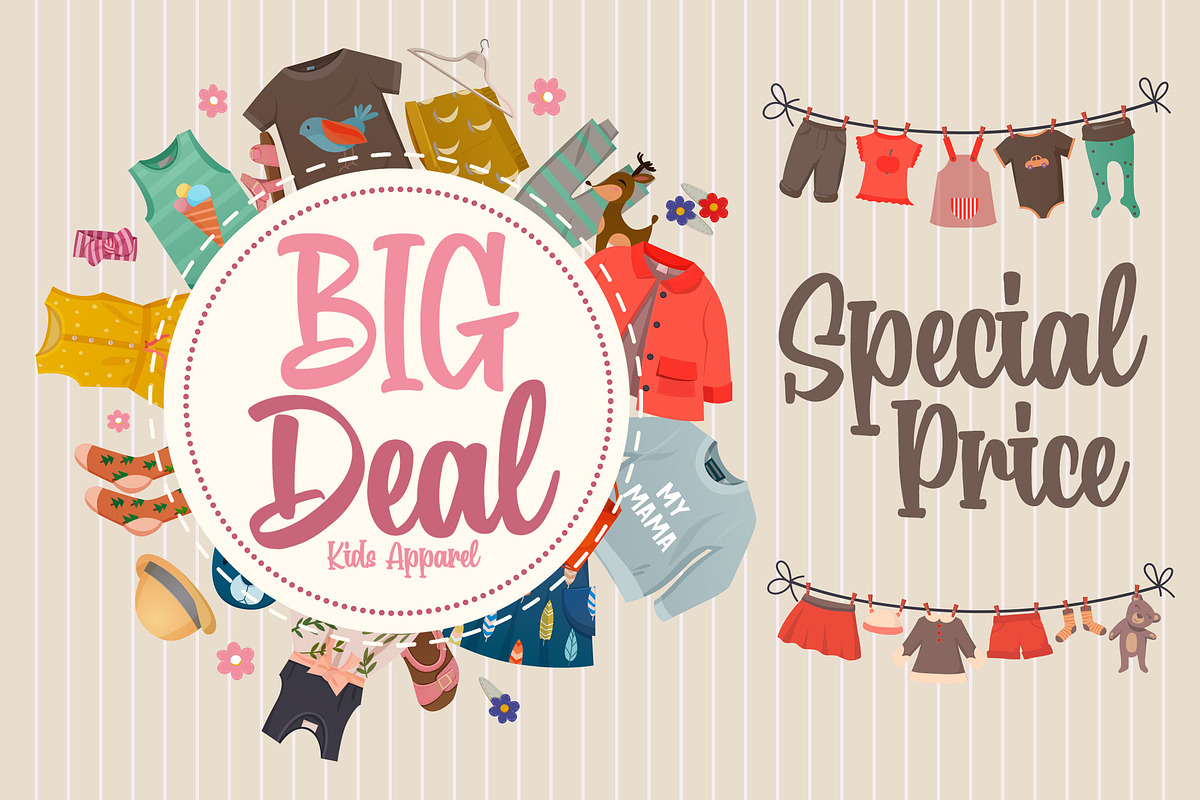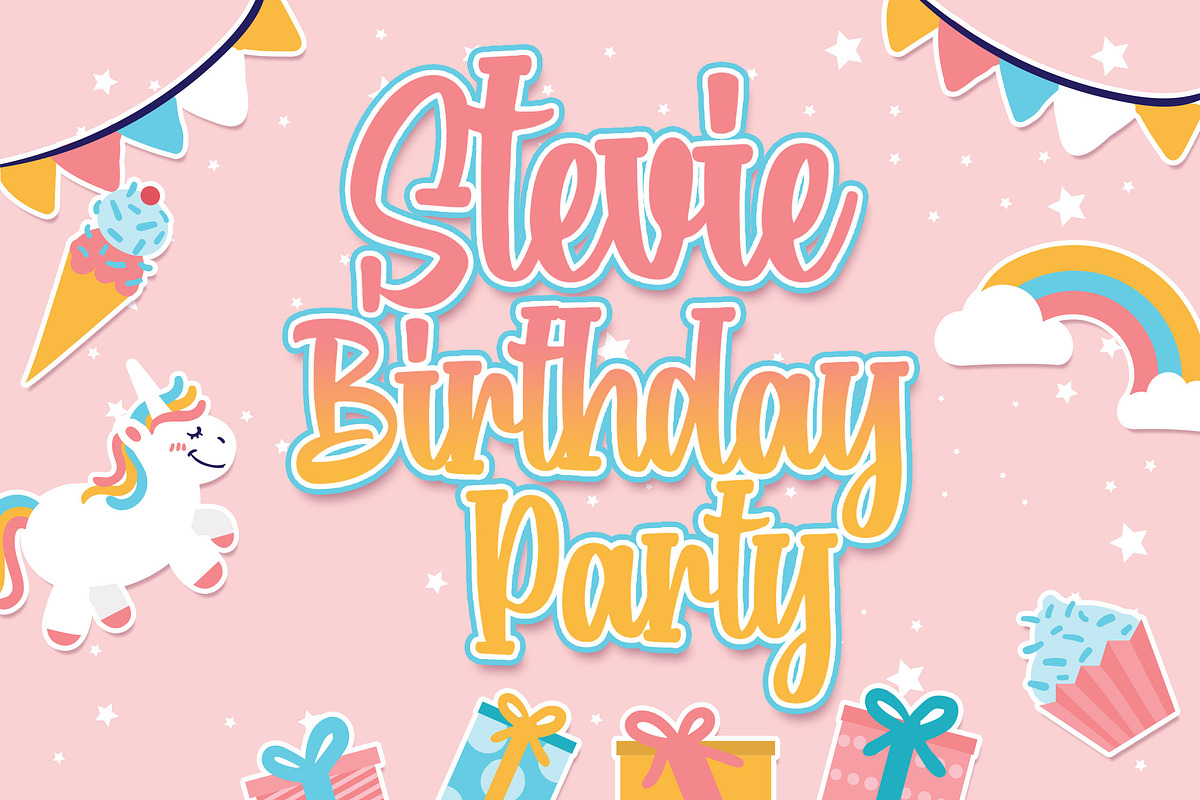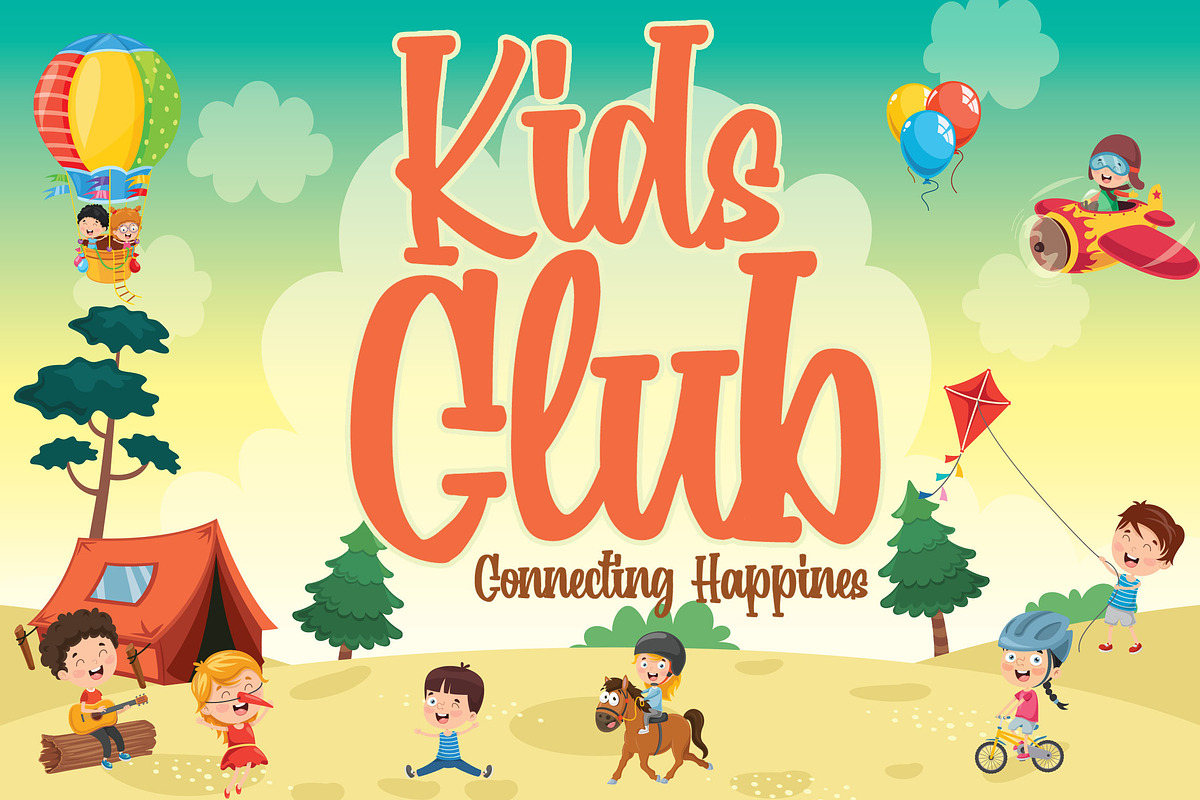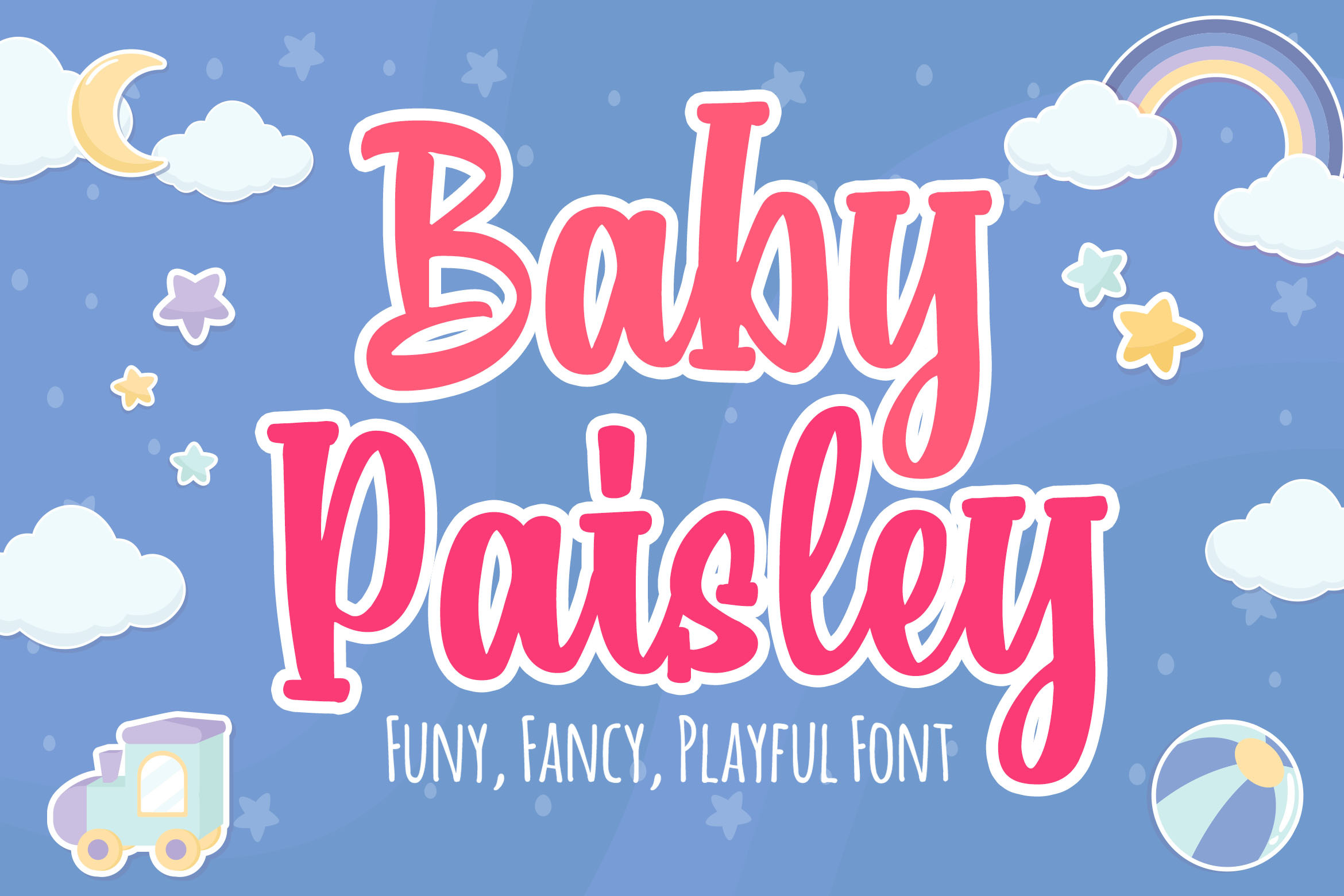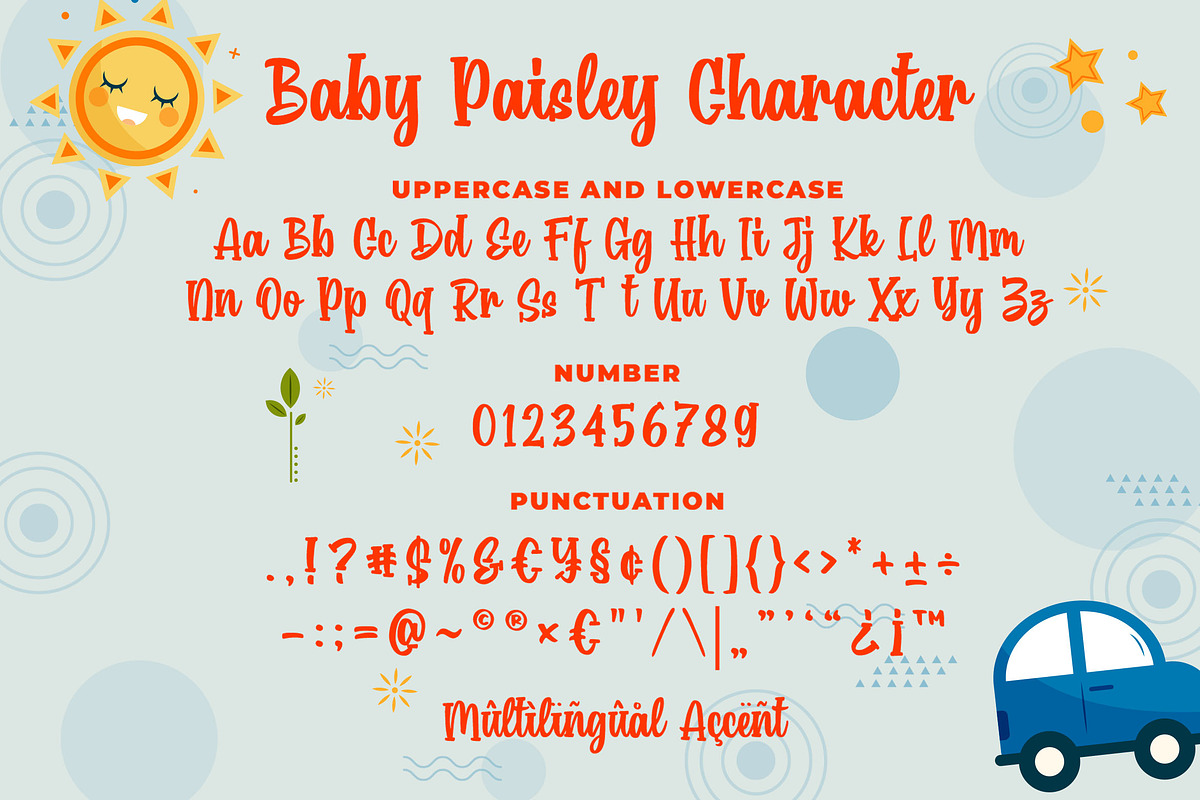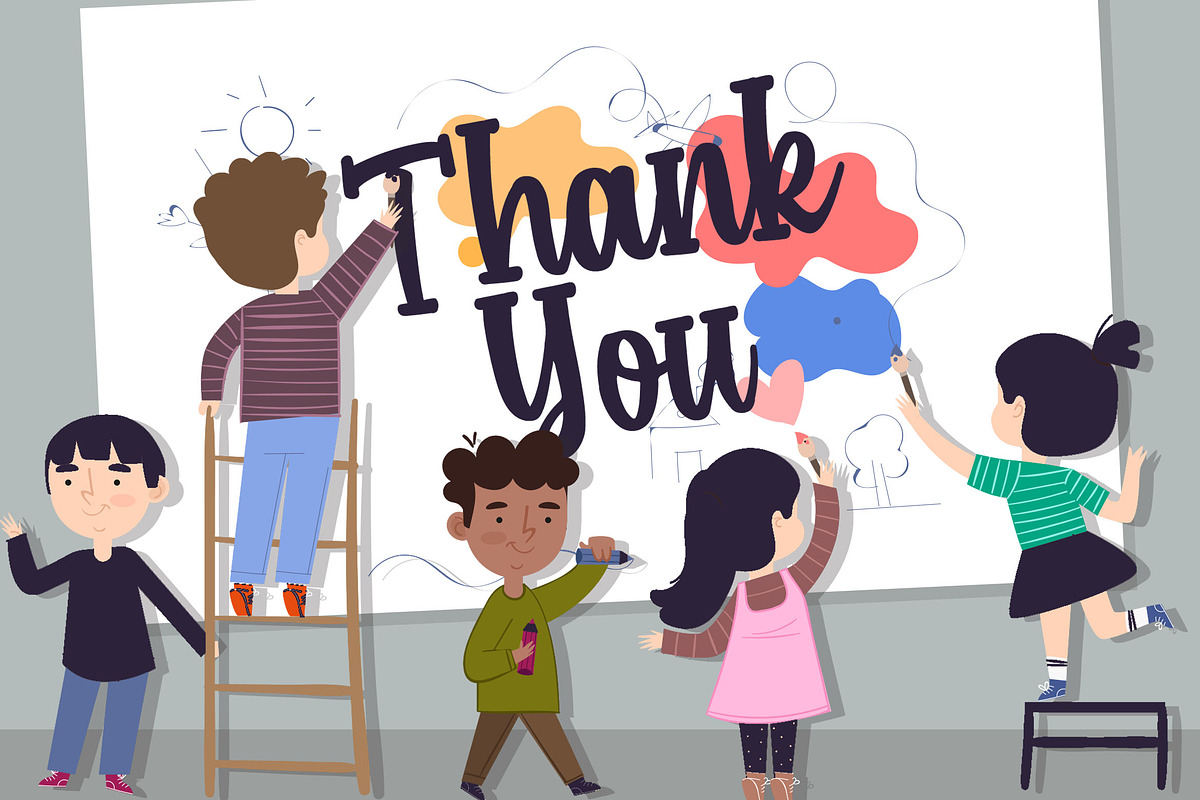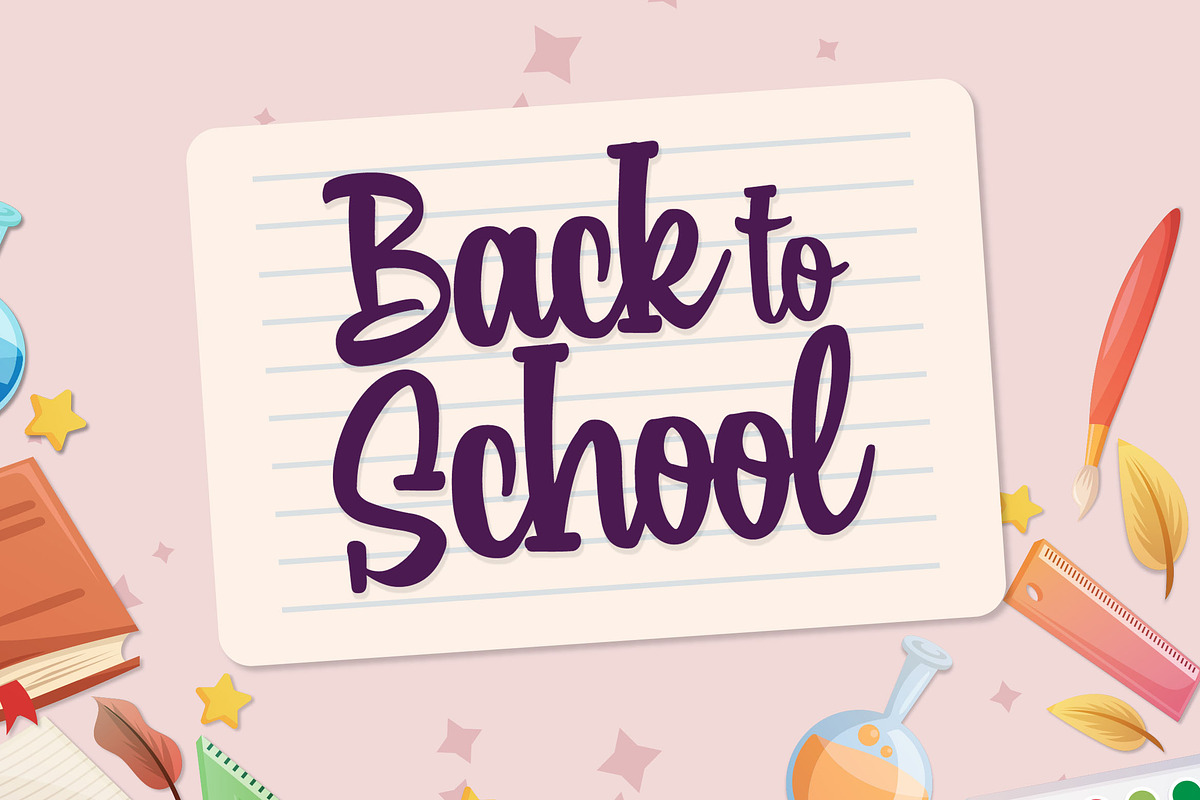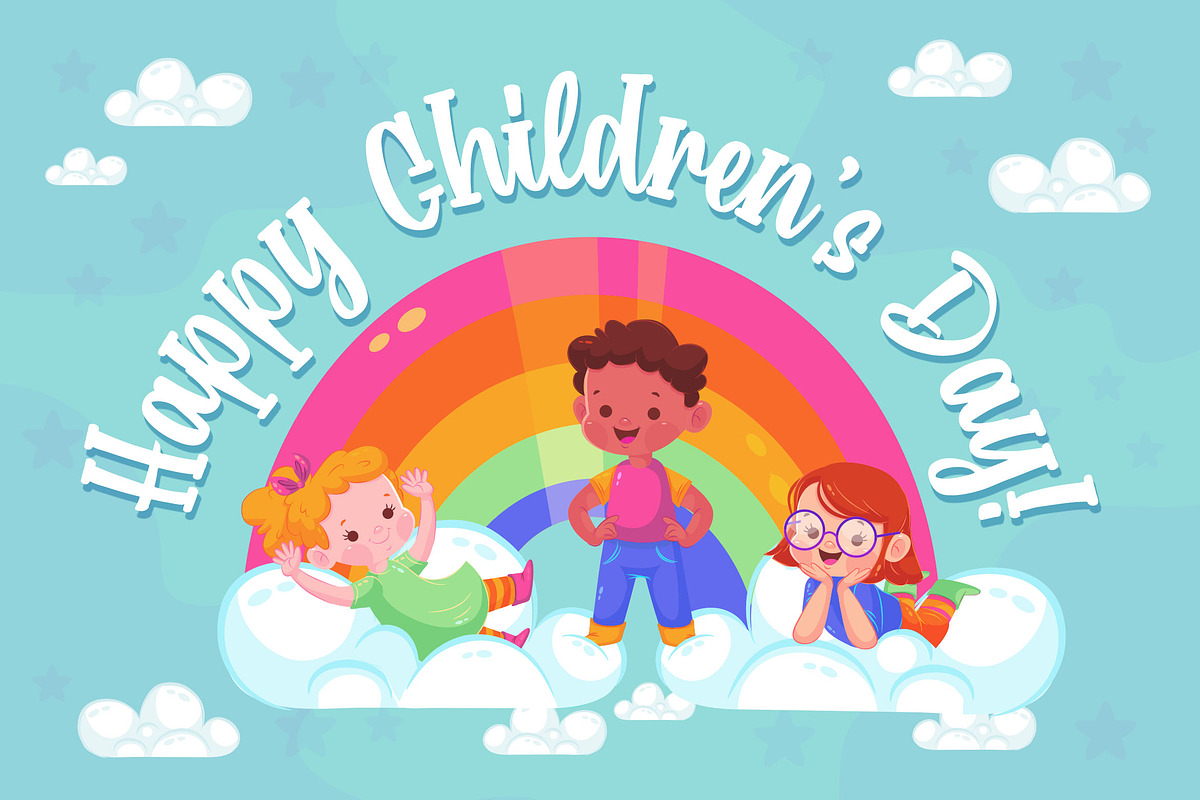
Baby Paisley a Playful Font
Introducing of our new product the name is Baby Paisley a Playful Font. Baby Paisley inspired by kids style with a fun theme very good for food poster, children book, kids poster, flyer, craft etc